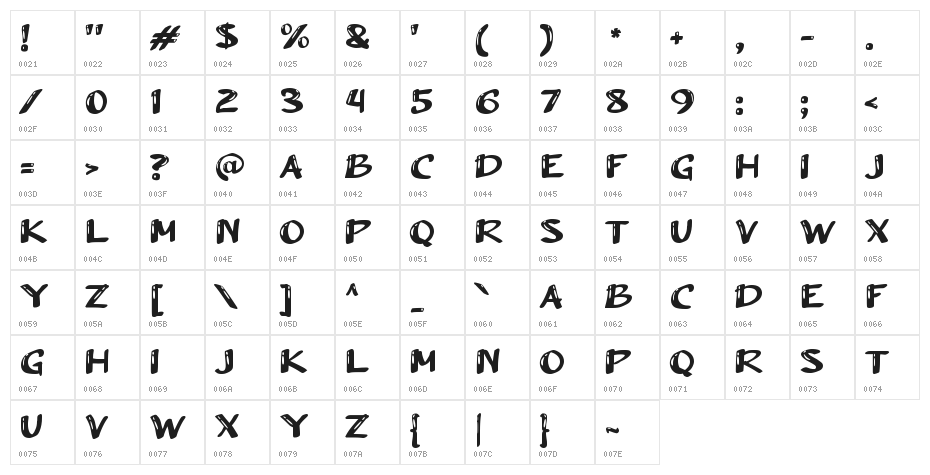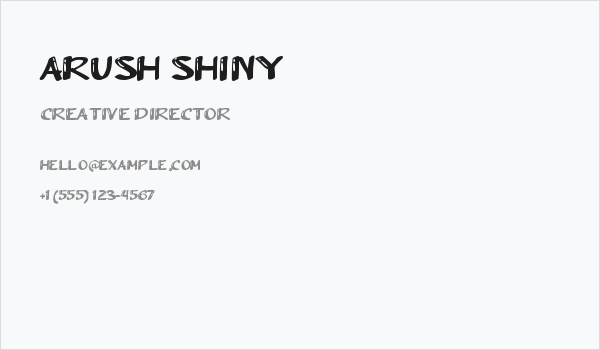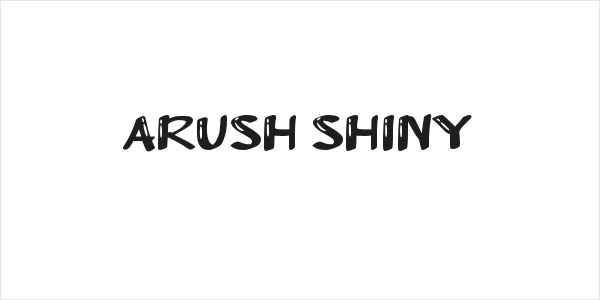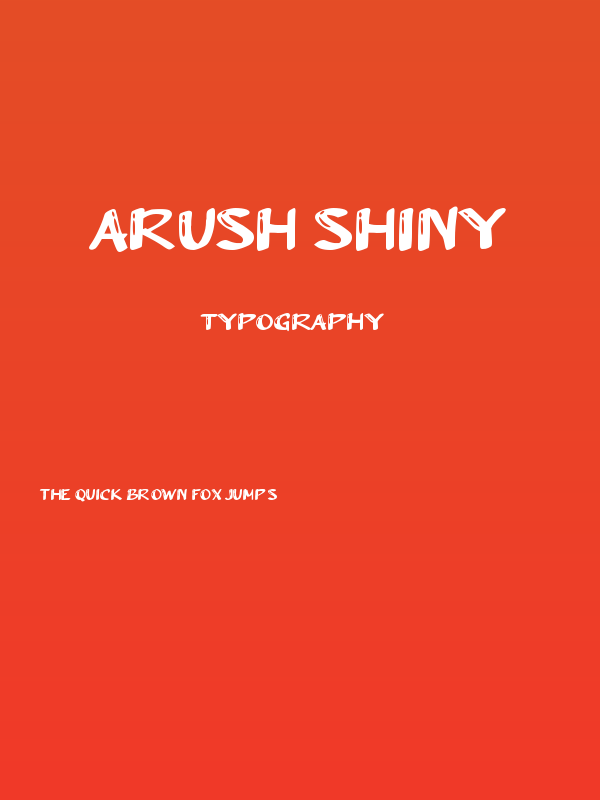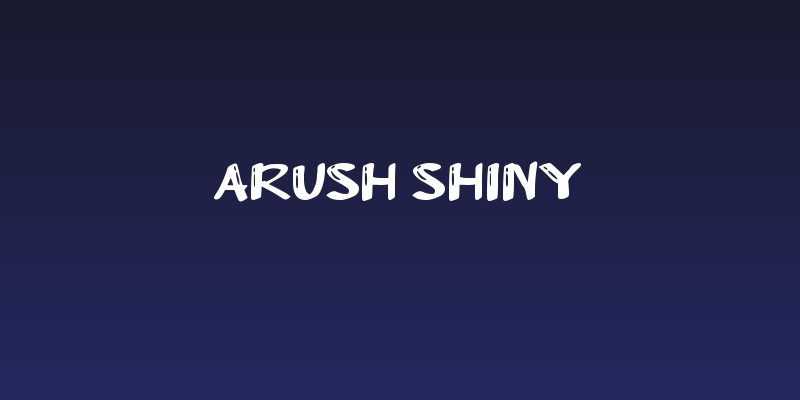
Arush Shiny Font
Arush Shiny Description
This font features a bold and dynamic style with a handwritten appearance. The characters are slightly slanted, giving them a sense of motion and energy. The strokes are thick and consistent, with rounded edges that add a friendly and approachable feel. The uppercase and lowercase letters maintain a cohesive look, while the numerals and special characters blend seamlessly into the overall design. This font's playful yet structured form makes it versatile for various creative applications.
| Overall Style | Playful, Modern |
| Proposed Projects | Ideal for branding, posters, social media graphics, and children's book covers. |